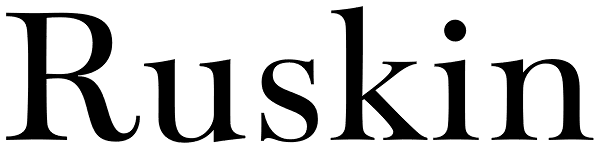
Ruskin
The origin of Ruskin was a commission for Michael Harvey to design a signage font for the Dean Gallery in Edinburgh. The style of the letterforms was to complement the period of the building which was originally an orphanage built in 1839. Only...